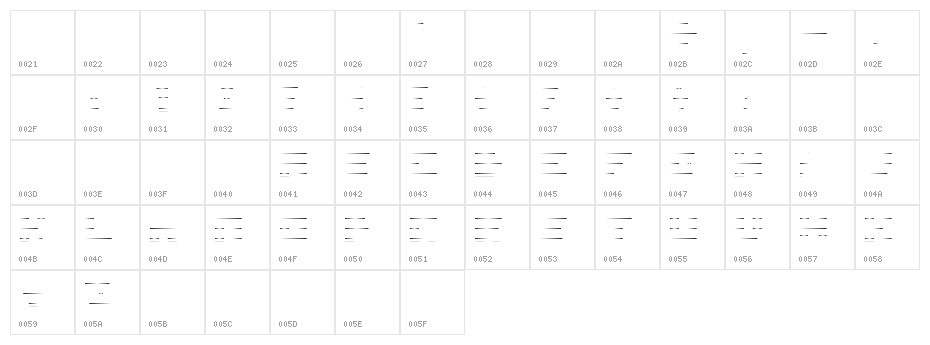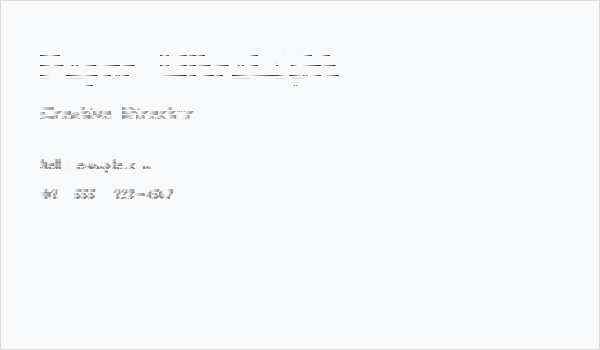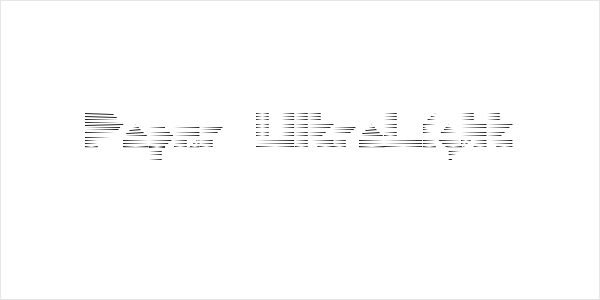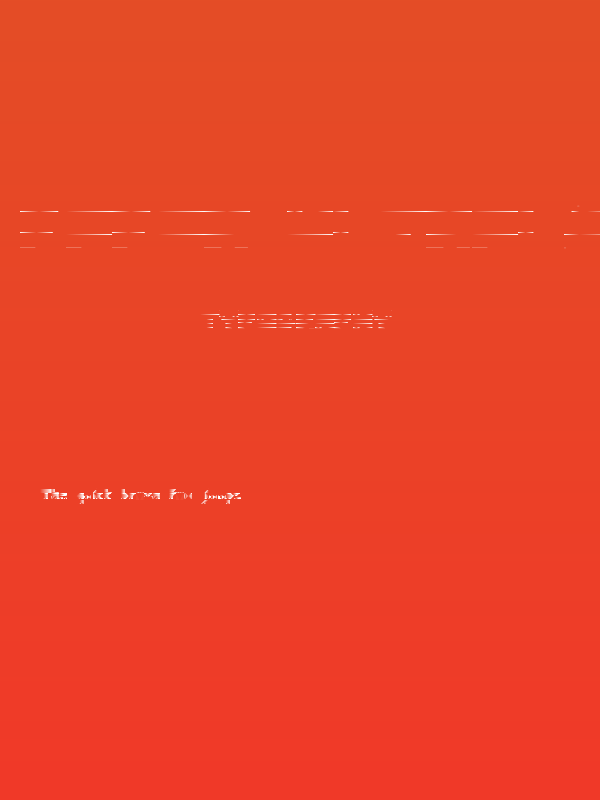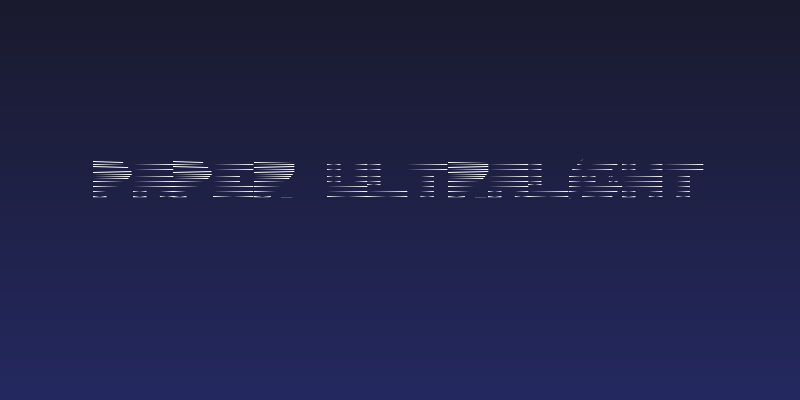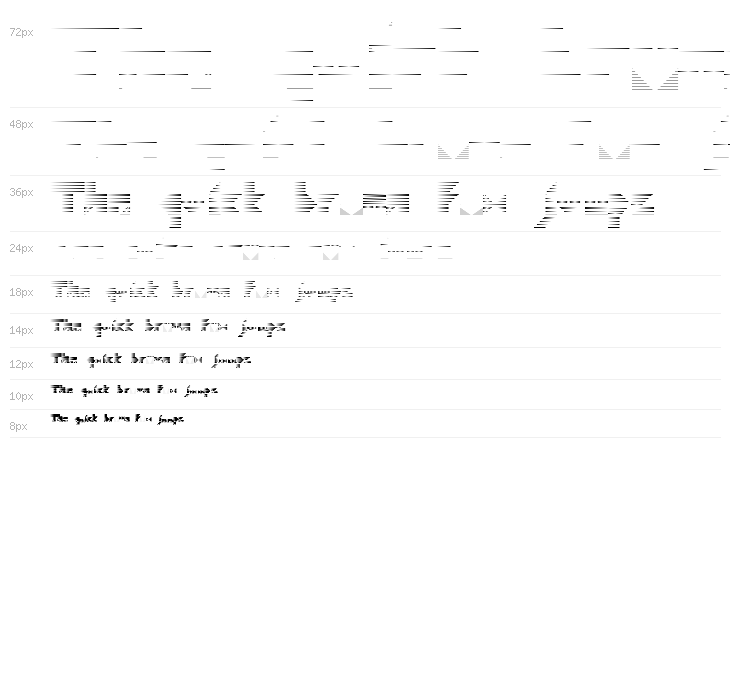
Paper UltraLight Font
Paper UltraLight Description
This font features a unique design with a series of horizontal lines creating a striped effect across each character. The geometric shapes are bold and angular, giving it a futuristic and modern appearance. The uppercase and lowercase letters maintain a consistent style, with sharp edges and a uniform line thickness. Numbers and special characters are designed to match the overall aesthetic, ensuring a cohesive look. The font's distinct style makes it stand out, perfect for projects that require a contemporary and edgy feel.
| Proposed Projects | Ideal for branding, posters, album covers, and digital artwork that require a modern and futuristic touch. |